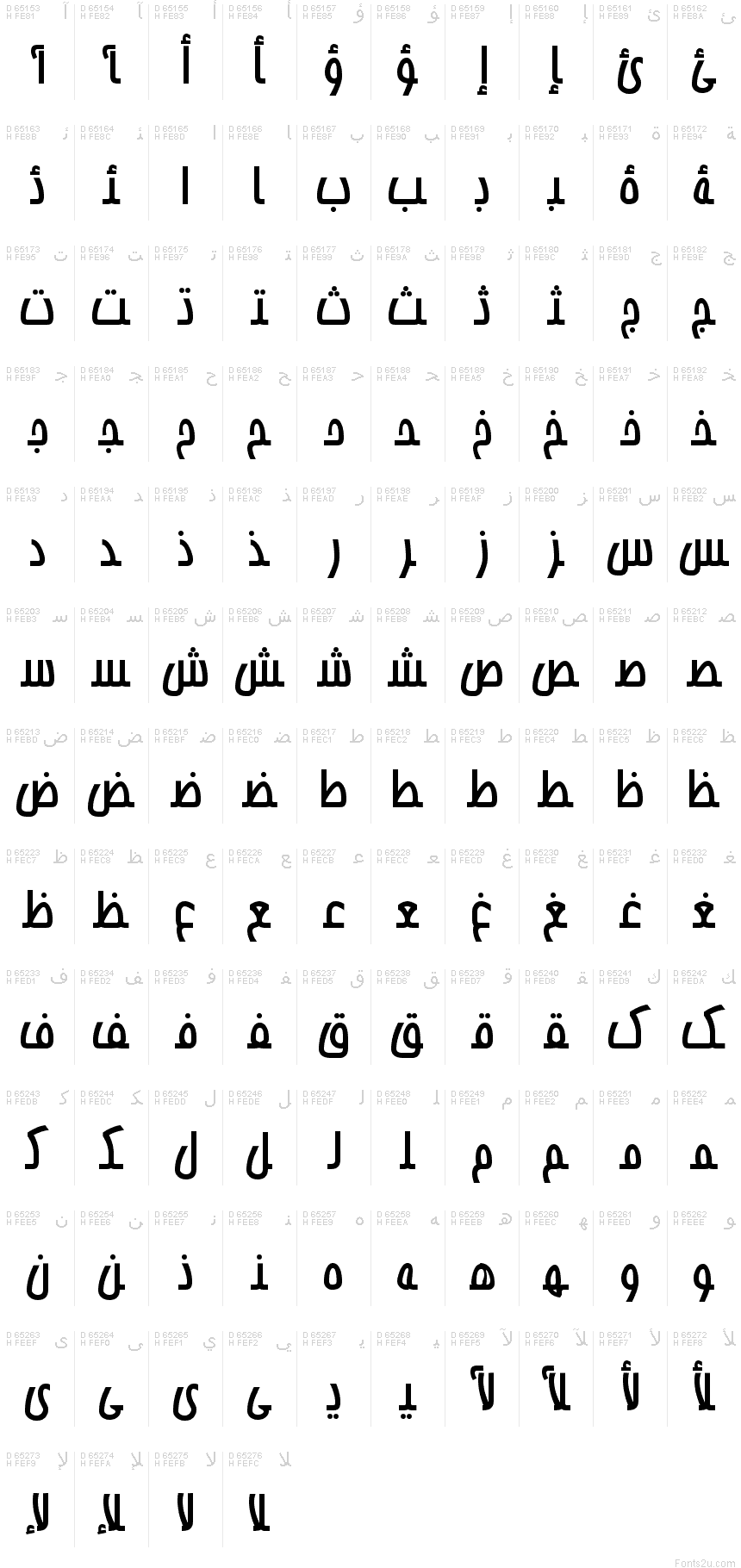
B Bardiya Bold by Borna Rayaneh is a free Arabic display font with a bold, compact rhythm and a distinctly modern feel. The lettering looks built from dense, squared strokes and firm horizontal movement, giving the script a sturdy, banner-like presence rather than a calligraphic flow.
That makes it a natural fit for posters, packaging, mastheads, book covers, and title cards where short Arabic lines need weight and a controlled silhouette. As a free font, it also suits logos, cultural event graphics, and headline locks that benefit from its blocky cadence and concentrated texture.